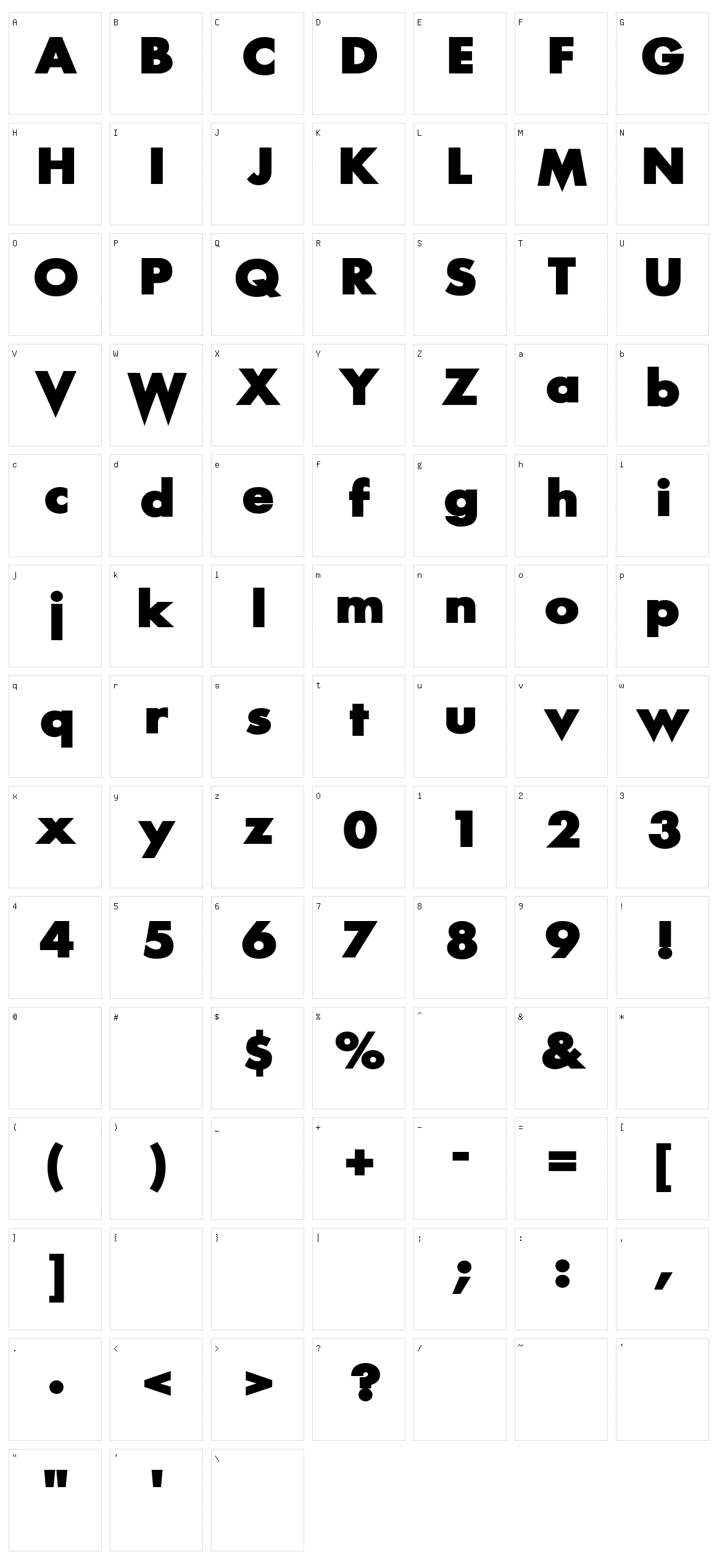
Font: Scream regular, outlined, alternative and alternative outlined
Hello! This font is a remake of the font "RsFutura", which look almost like the Scream font. I've made it a little bit bolder and made some few fixes, including the Scream-look on the M and the V's.